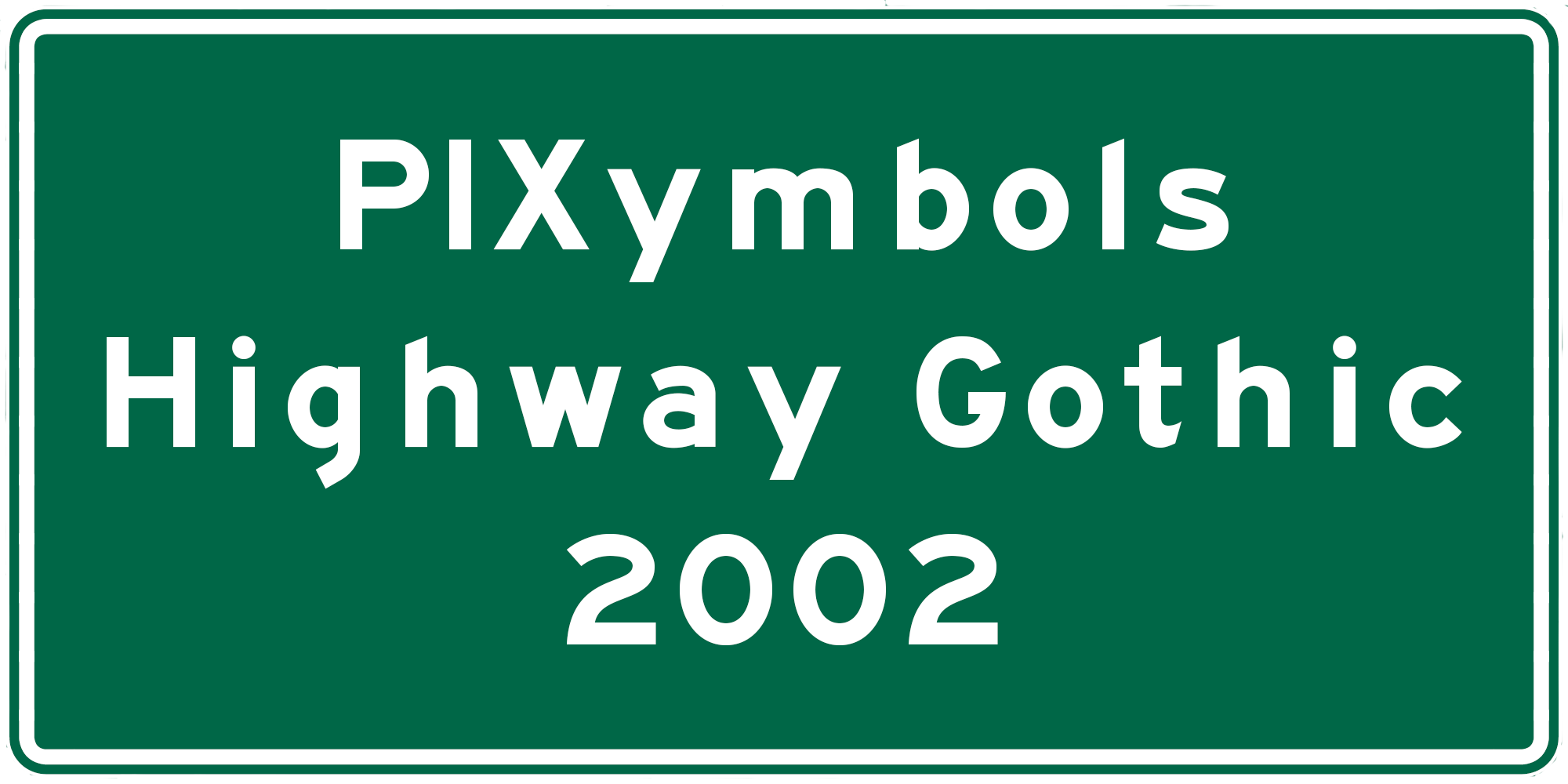
The PIXymbols Hwy Gothic2002 Font is an essential choice for projects that demand a clear, authoritative, and instantly recognizable aesthetic, specifically designed for U.S. highway signage and transportation-related graphics. It's perfectly suited for maps, informational displays, public signage, transportation branding, urban planning documents, and any design that requires a highly legible and functional typeface associated with road networks. Its straightforward and robust character makes it ideal for conveying a sense of clarity, safety, and official communication.
What makes PIXymbols Hwy Gothic2002 Font so exciting is its foundation in a typeface designed for optimal readability in demanding conditions, such as high-speed environments and varying lighting. Its precise letterforms and consistent spacing ensure exceptional legibility, which is paramount for conveying critical information efficiently. This font isn't just about aesthetics; it's about practical functionality and public safety. It excels at delivering messages with absolute clarity and an undeniable sense of official authority, making your content feel reliable and widely understood. Its widespread use in real-world signage gives it an inherent trustworthiness and familiarity.
The PIXymbols Hwy Gothic2002 Font family is comprehensive, directly mimicking the various series (A, B, C, D, E, EM, F) used in the federal Highway Gothic standard. Each series represents a different width and weight, designed for specific applications on road signs. For example, PIXymbols Hwy Gothic2002 BSeries might be narrower for shorter text, while PIXymbols Hwy Gothic2002 FSeries would be wider and heavier for major highway names. The family also often includes specialized elements like DOTborder for creating the distinct border lines found on signs. This extensive range provides unparalleled flexibility for designers to replicate authentic highway signage or create new designs with the same functional clarity.
Whether you're developing navigation apps, designing public information systems, or crafting educational materials related to transportation, the PIXymbols Hwy Gothic2002 Font Free Download offers an indispensable tool. Its clear readability and robust, functional appeal make it a premier choice for any project that requires a typeface of unquestionable clarity and practical excellence, especially for official or infrastructure-related applications.